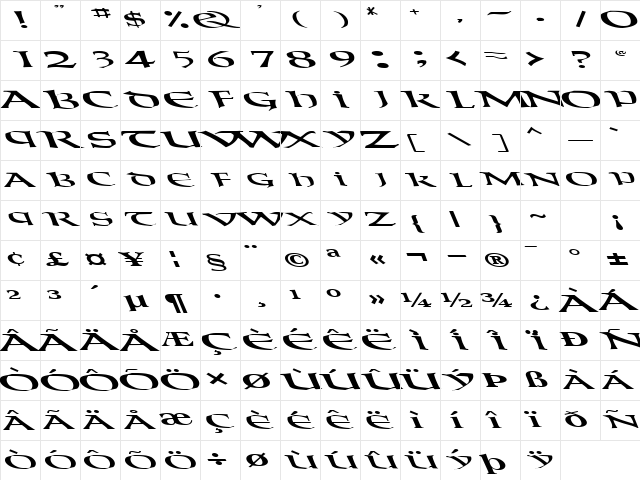
ProVisionFont Regular
Design Context for ProVisionFont
ProVisionFont is a composed and adaptable typeface that performs quietly and consistently across a wide range of design contexts.